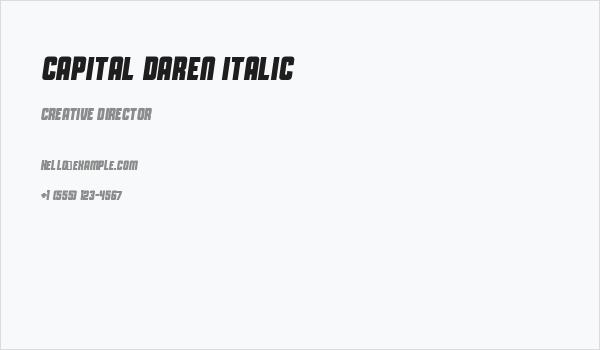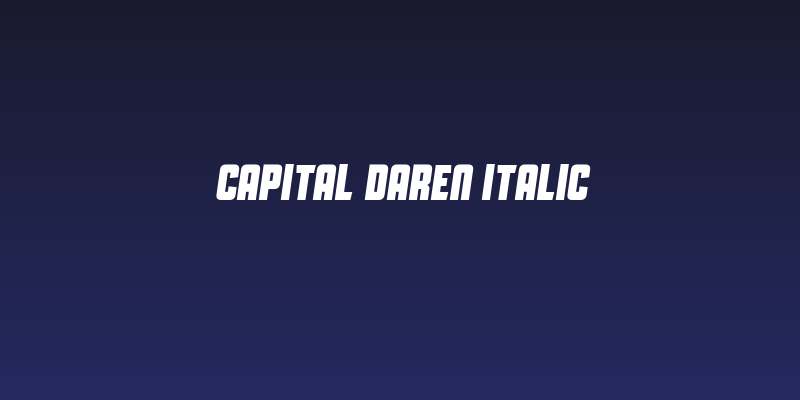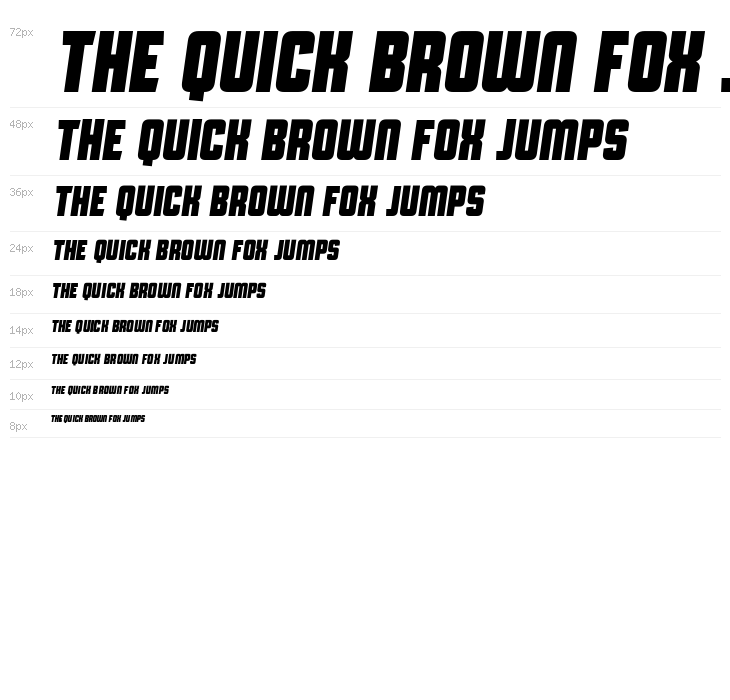
Capital Daren Italic Font
Capital Daren Italic Description
This font features a bold and dynamic style with a strong presence. The characters are slightly italicized, giving them a forward-leaning appearance that suggests movement and energy. The strokes are thick and consistent, providing a robust and impactful look. The design is modern and sleek, with a slight slant that adds a sense of urgency and action. The uppercase letters are prominent and commanding, while the lowercase letters maintain the same boldness and style. The numbers and special characters are equally bold, ensuring consistency across all elements.
| Proposed Projects | Ideal for sports branding, action-themed posters, dynamic logos, and headlines that require a strong visual impact. |